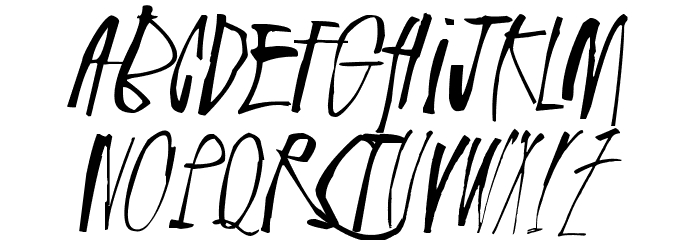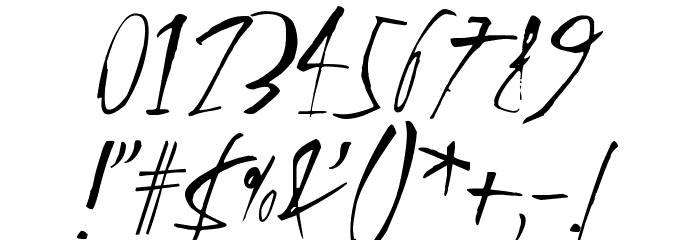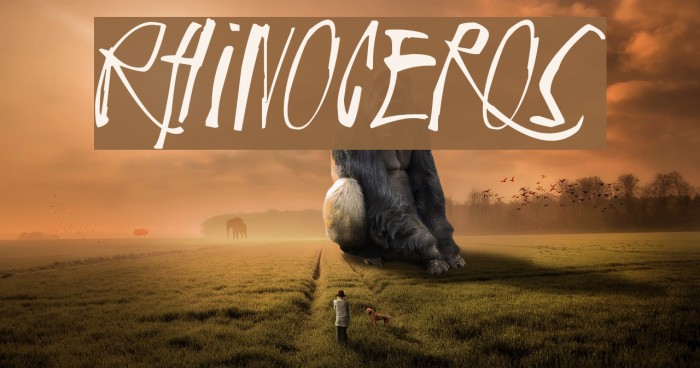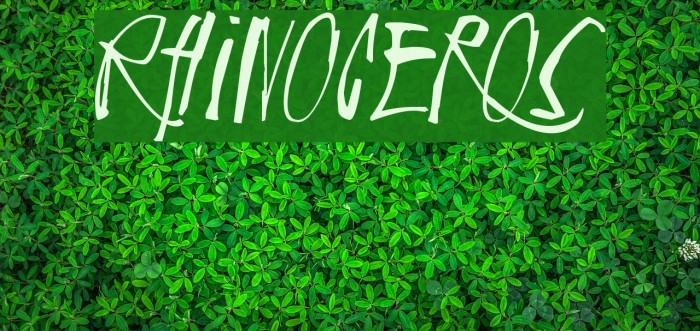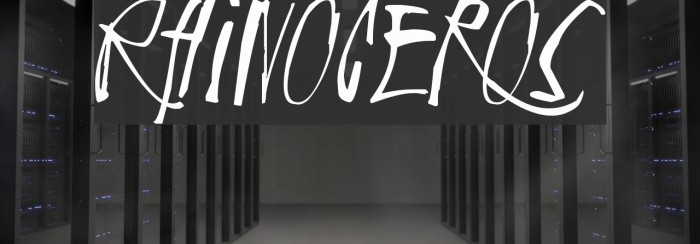
Rhinoceros Font
This font exhibits a dynamic and expressive style, characterized by its bold, brush-like strokes that convey a sense of energy and movement. The letters are slightly slanted, adding to the fluidity and informal nature of the design. The uppercase and lowercase letters maintain a consistent style, with some variations in stroke thickness that enhance the handwritten feel. The numbers and special characters are crafted with the same attention to detail, ensuring a cohesive look across all elements. This font is ideal for projects that require a personal touch or an artistic flair.
A dynamic, brush-style font with bold, expressive strokes.
- Proposed Projects: Ideal for artistic projects, branding, posters, and invitations that require a personal or creative touch.